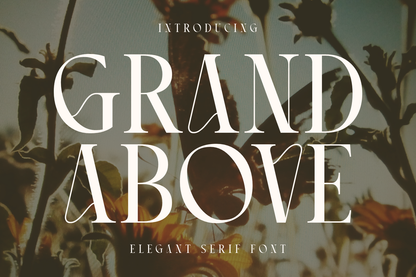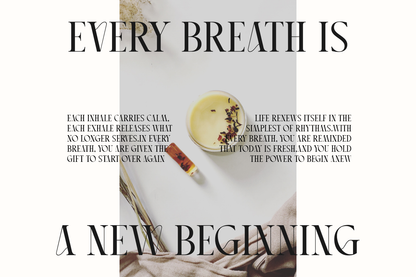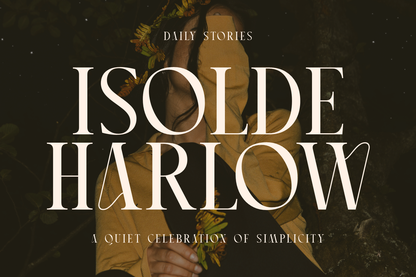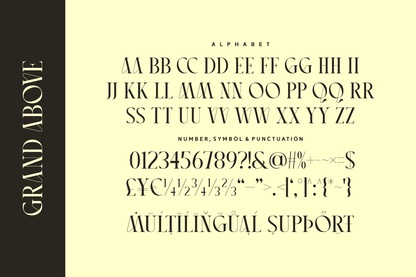
Grand Above is an elegant serif font with tall letterforms and dramatic contrast. Its carefully sculpted serifs and sharp detailing bring sophistication to any design — whether you're crafting wedding invites, editorial spreads, or upscale brand identities.